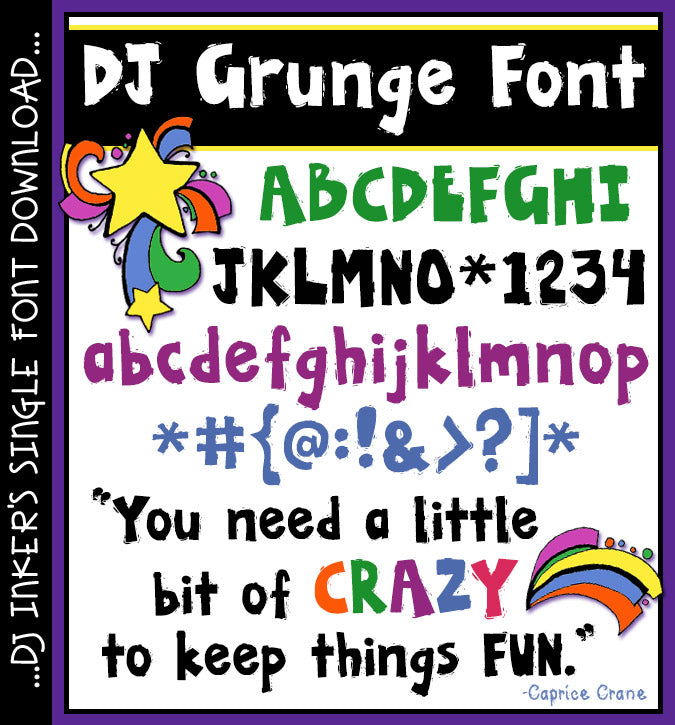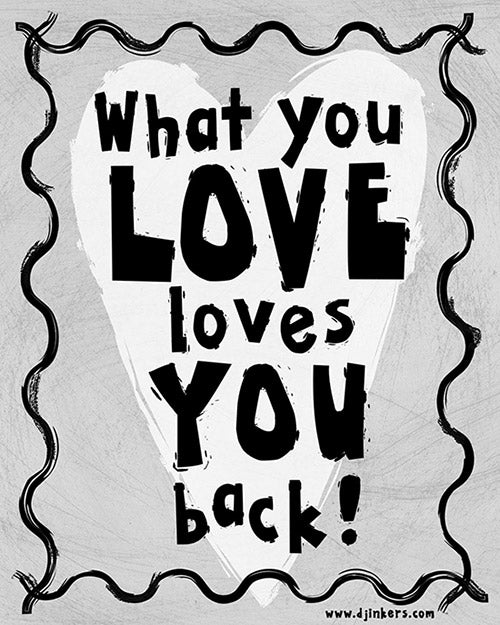
DJ Grunge Font Download
Your font collection needs a little CRAZY to keep things fun... and DJ
Grunge will be just the thing! Give your projects a creative edge
with these funky, cool paint splattered letters. It'll be awesome
for bold headlines, art class, parties, special events and making a statement.
Updated and revised from 'DJ Spatter' (included with Kid Doodles Science & Math).